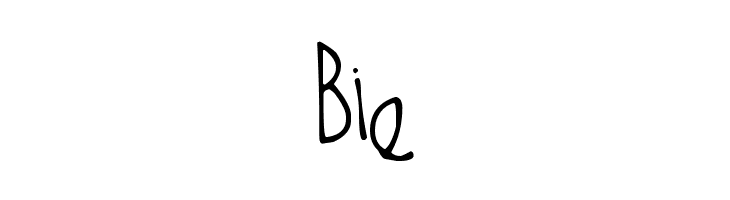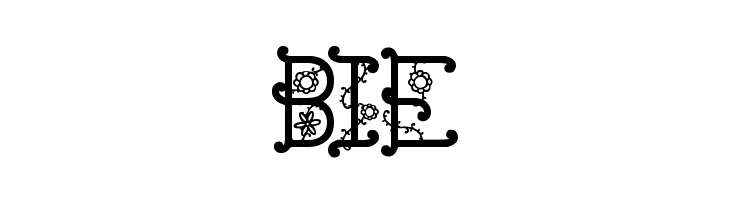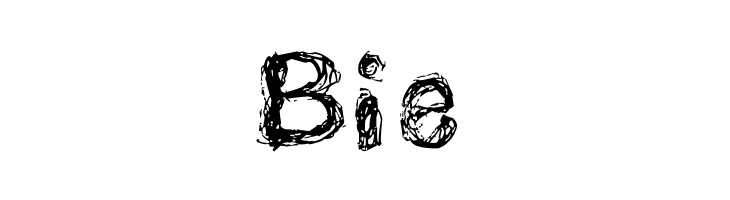
A playful, casual handwritten font with rounded, consistent strokes.
A fluid, handwritten font with a casual and elegant style.
A bold, narrow font with a modern and elegant style.
A whimsical, hand-drawn font with tall, narrow letters and playful curves.
A playful, hand-drawn font with irregular strokes and a whimsical style.
A decorative font with floral embellishments on bold, rounded characters.
A distressed, hand-drawn font with chaotic, overlapping strokes for a grunge aesthetic.
A playful, modern font with rounded edges and a bold style.